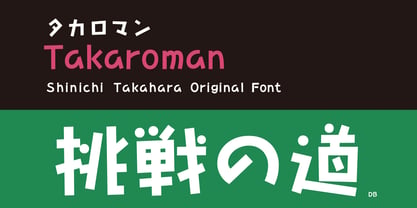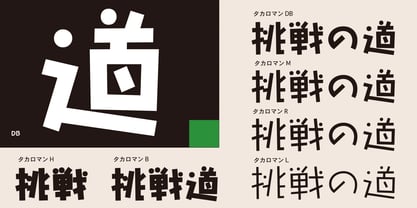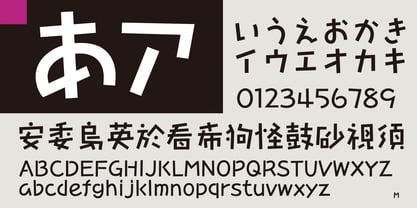
Takaroman
by Taka Design Production
The Takaroman Font Family was designed by and published by Taka Design Production. Takaroman contains 6 styles and family package options. More about this family
The kanji are all in straight lines, but the lack of rigidity is due to the free and unrestrained unique style of the handwriting. The bold and moderate abbreviations and simplifications are applied within the range of readability, and the round elements create a sense of lightness. The letters are slightly rolled from side to create a moderate rhythm.